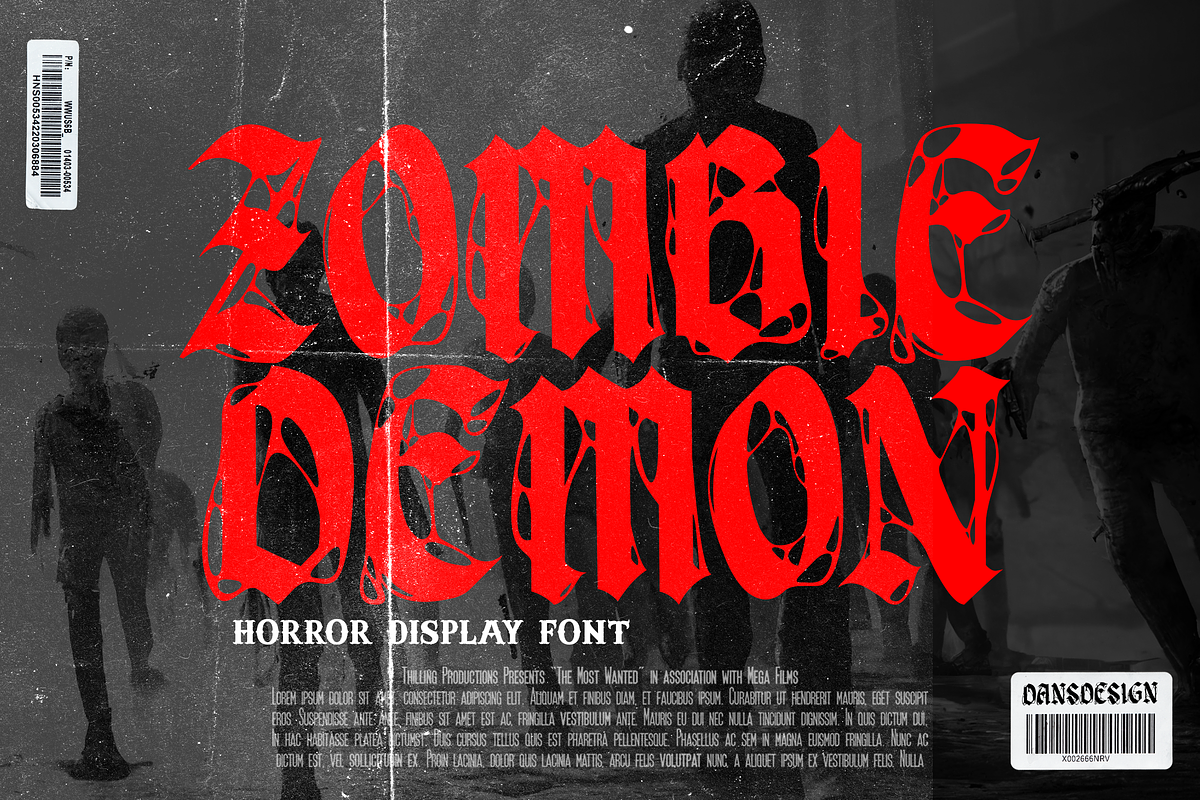
Zombie Demon Metal Horror Display Font Free Download is a chilling and bold typeface designed to capture the dark, edgy essence of horror and metal aesthetics. With jagged edges, distorted letterforms, and a rough texture, this font is perfect for metal band logos, horror movie posters, album covers, Halloween-themed designs, and anything that needs a heavy, sinister touch.
Whether you’re designing for a gritty, rebellious brand or creating intense, high-impact visuals, Zombie Demon Metal Horror Display Font Free Download brings the dark atmosphere of the horror genre right to your typography.
Create designs with raw power and dark allure with Zombie Demon Metal Horror Display Font Free Download—a must-have for designers looking to add a terrifying, heavy metal vibe to their work.